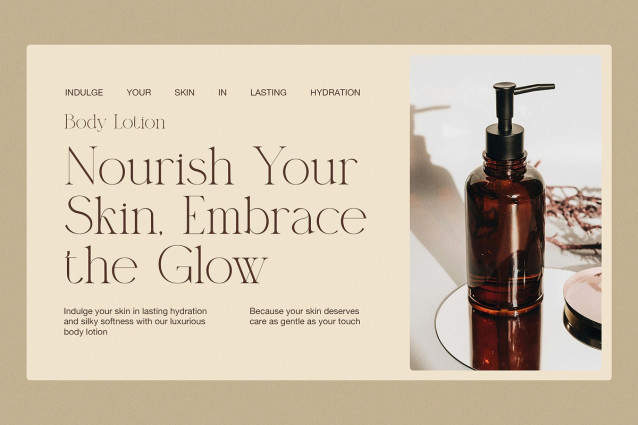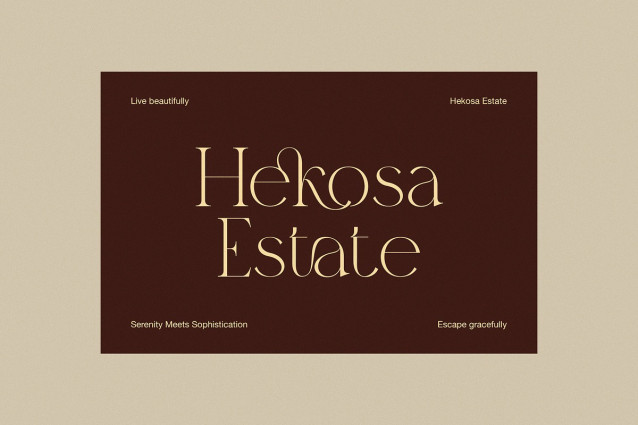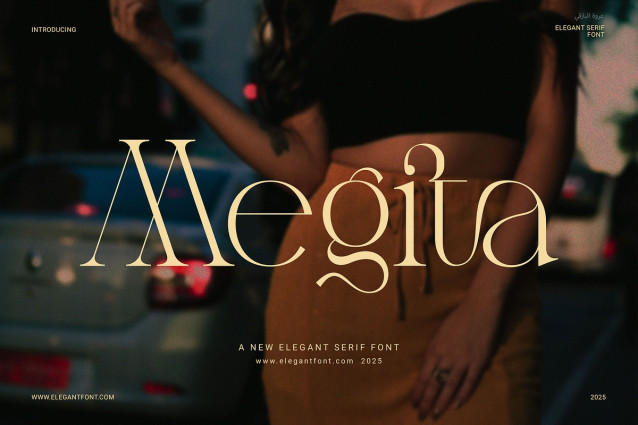
Megita Font
Megita Font – Elegant Serif Font is a stylish typeface that blends modern design with classic elegance. It features clean, proportional letterforms that give every layout a refined and polished look. Whether you’re working on branding or packaging, this font delivers a strong and timeless feel.
Thanks to its soft curves and balanced shapes, Megita looks great in both large headlines and smaller text. It also includes functional ligatures, which add a natural and elegant touch to each word. As a result, your designs will appear more professional and visually appealing.